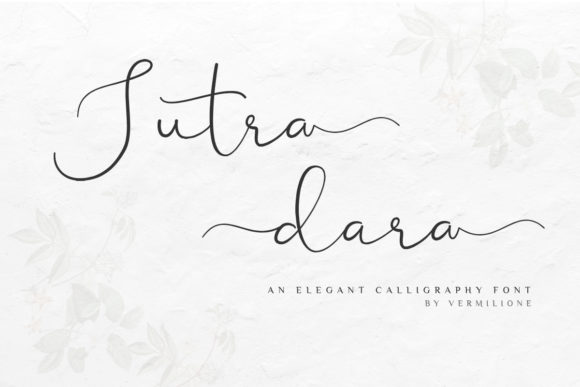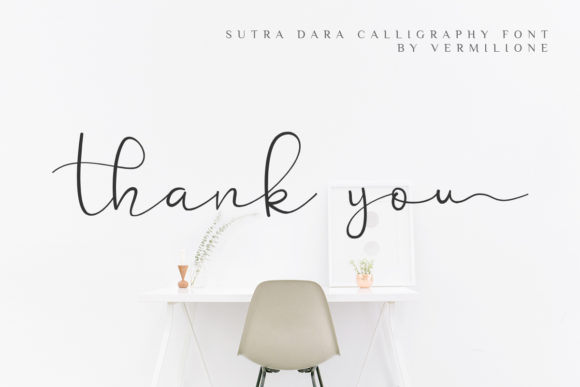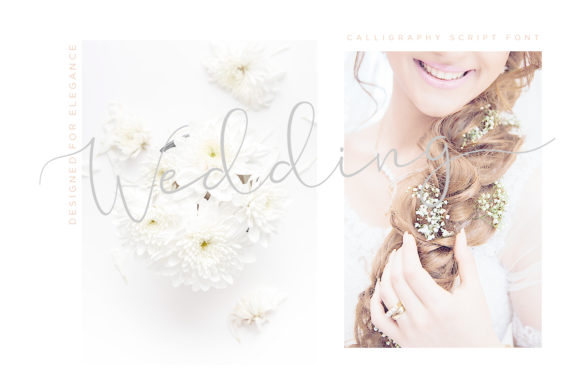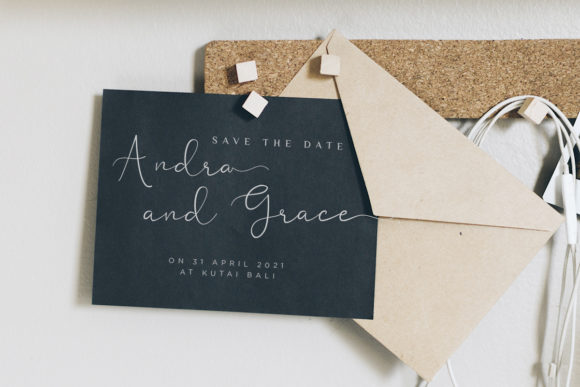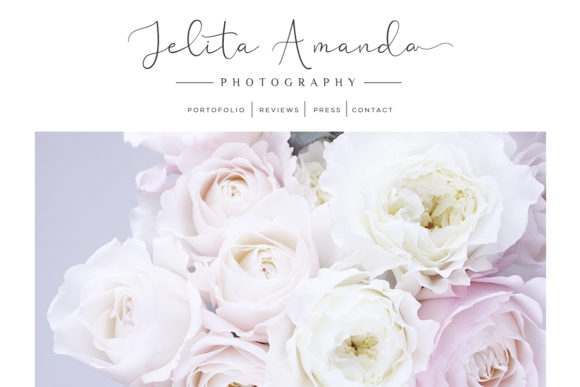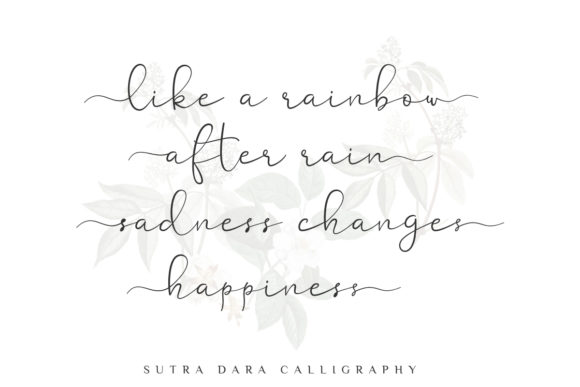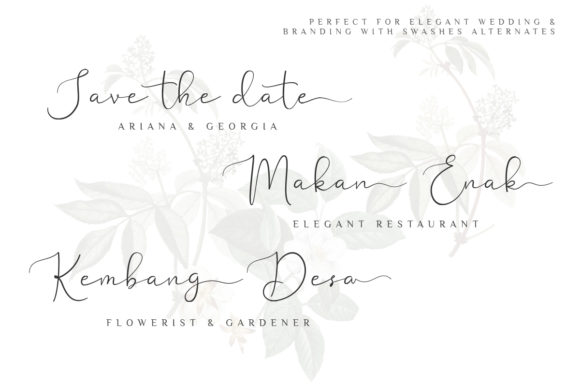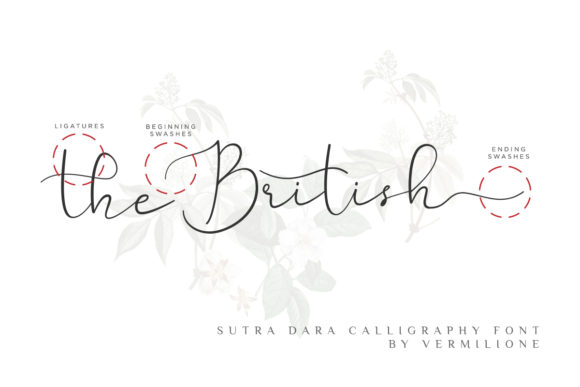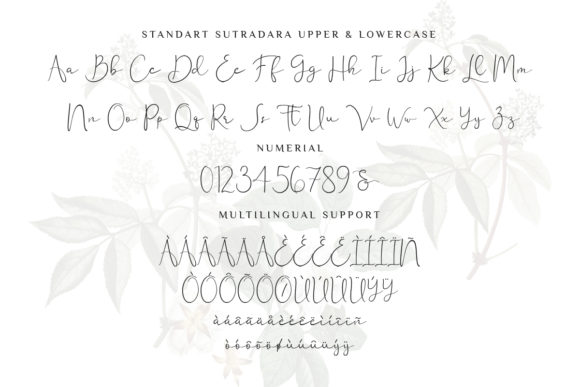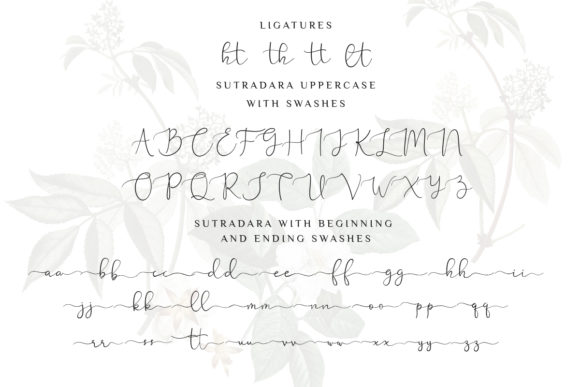
Sutra Dara Font
About Sutra Dara Font
Sutra Dara is an incredibly elegant and delicate font that will add a unique, sophisticated spark to any creative project.